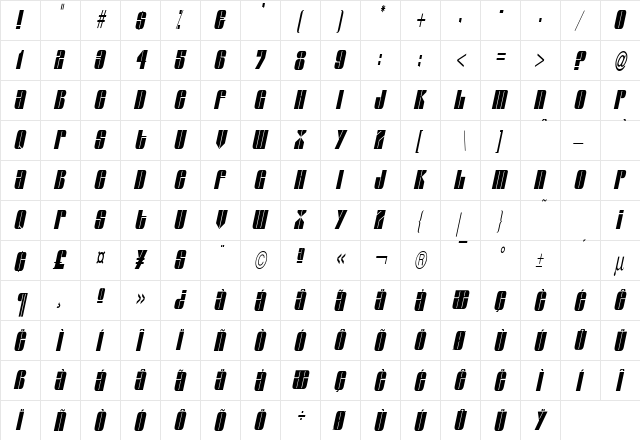
Glaze Extended Condensed Italic Font Preview
Design Context for Glaze Extended Condensed Typeface
Glaze Extended Condensed takes a measured approach to typography — its balanced proportions and neutral character make it a reliable workhorse for both digital and print work. The slanted form adds forward momentum and visual energy. The condensed width makes it efficient for tight spaces without sacrificing legibility.
Pro Tip: Use Glaze Extended Condensed for emphasis, pull quotes, and subheadings where its slanted energy can add rhythm to the layout.